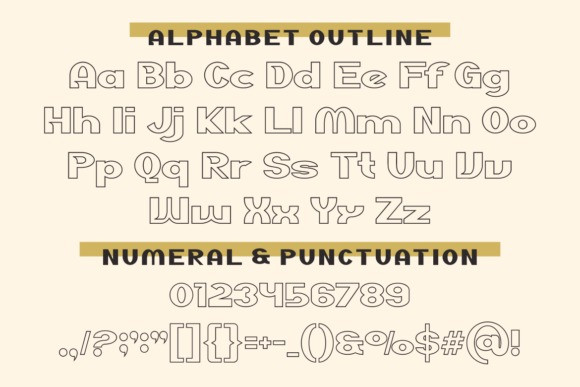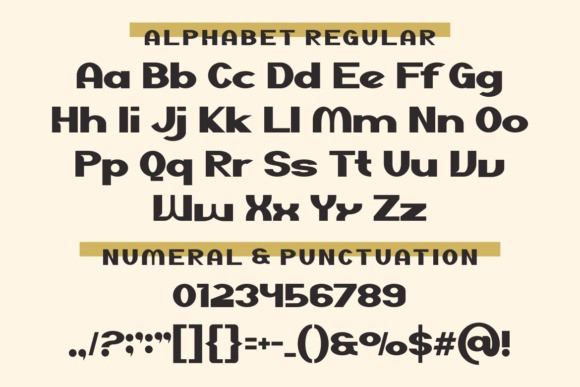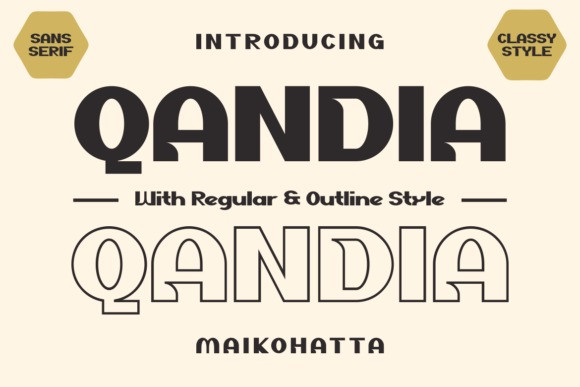
Qandia Font
Qandia Font features bold, attractive letterforms with clean lines and catchy edges. Perfect for headlines, logos, and short phrases, it adds a touch of sophistication to any design project.